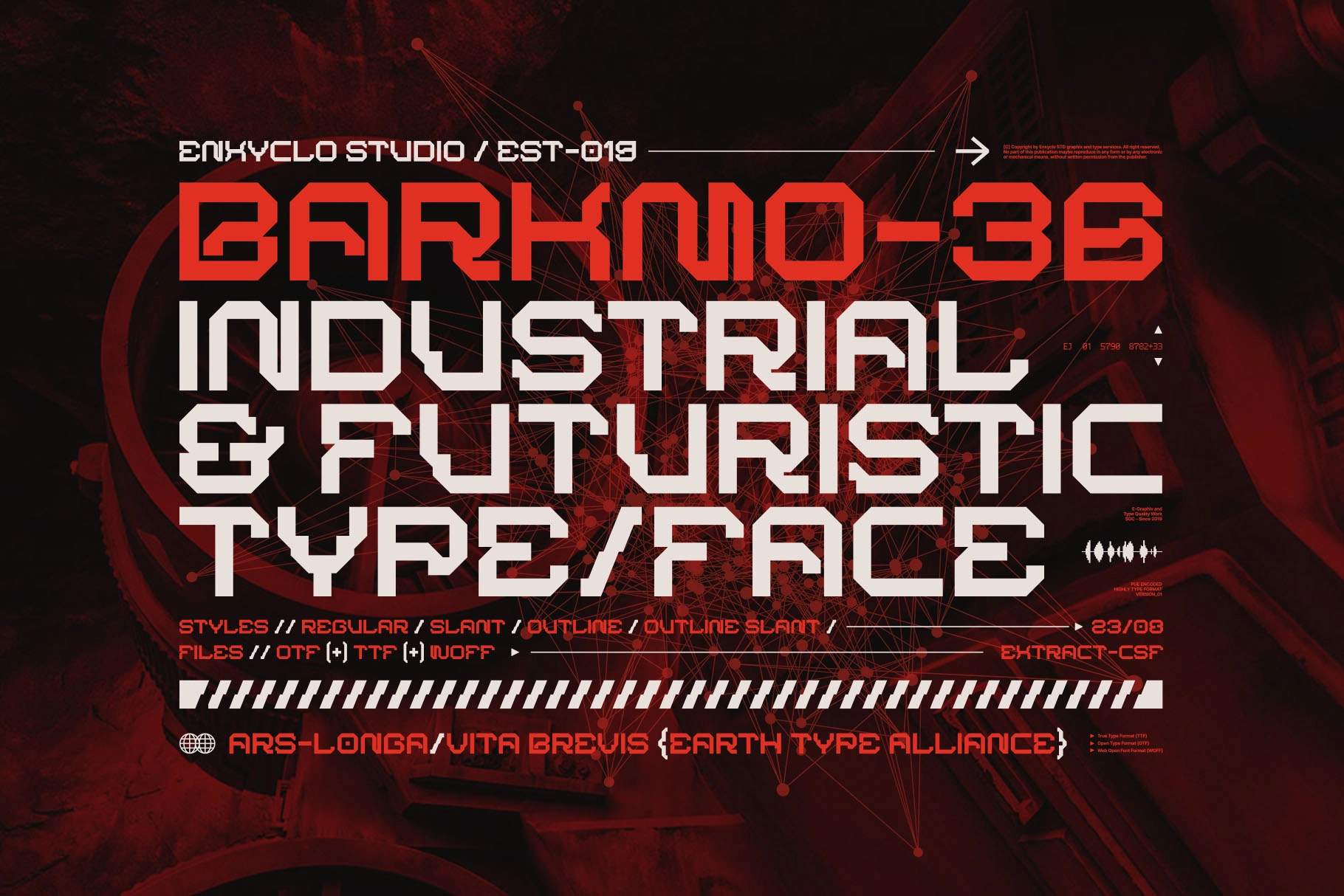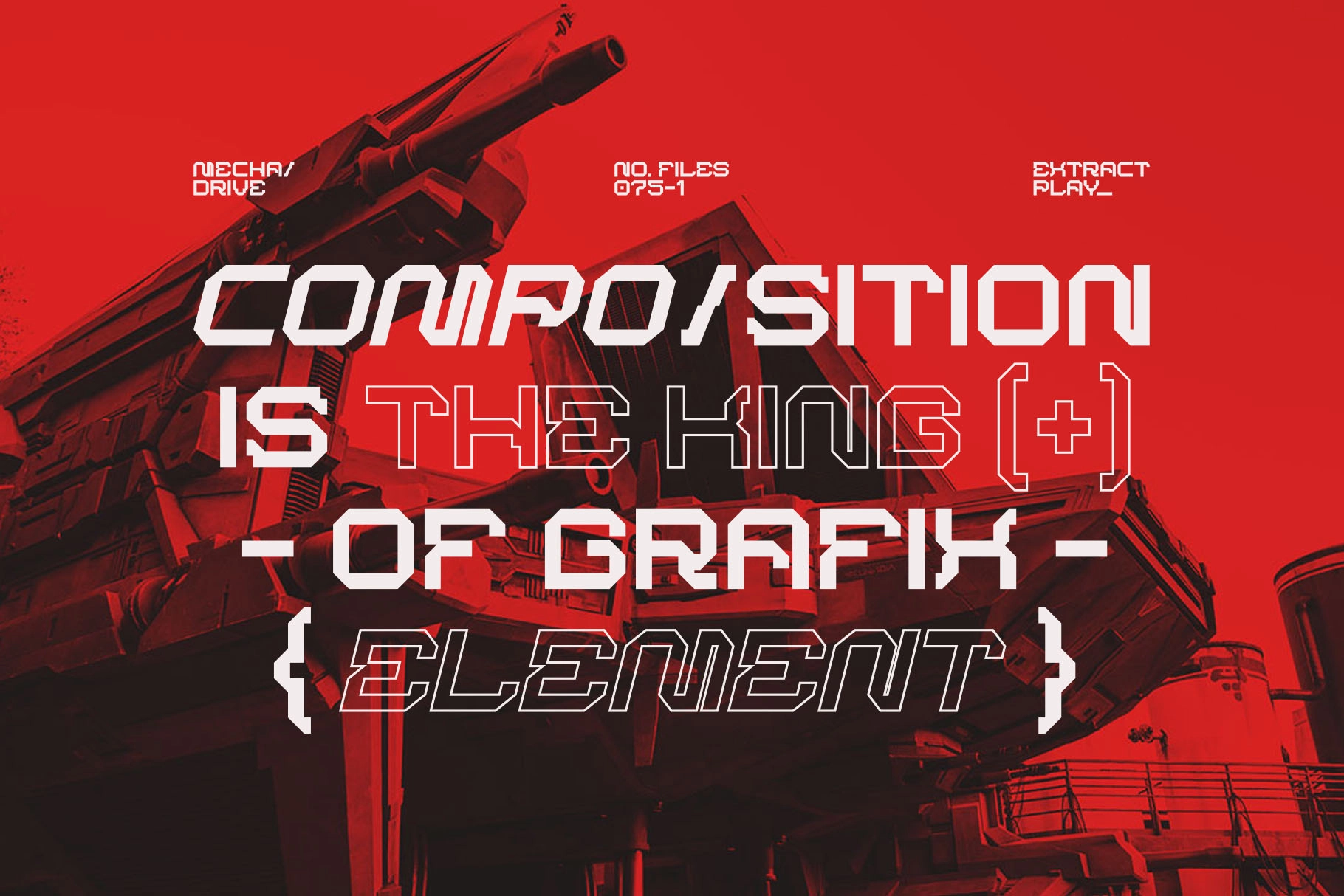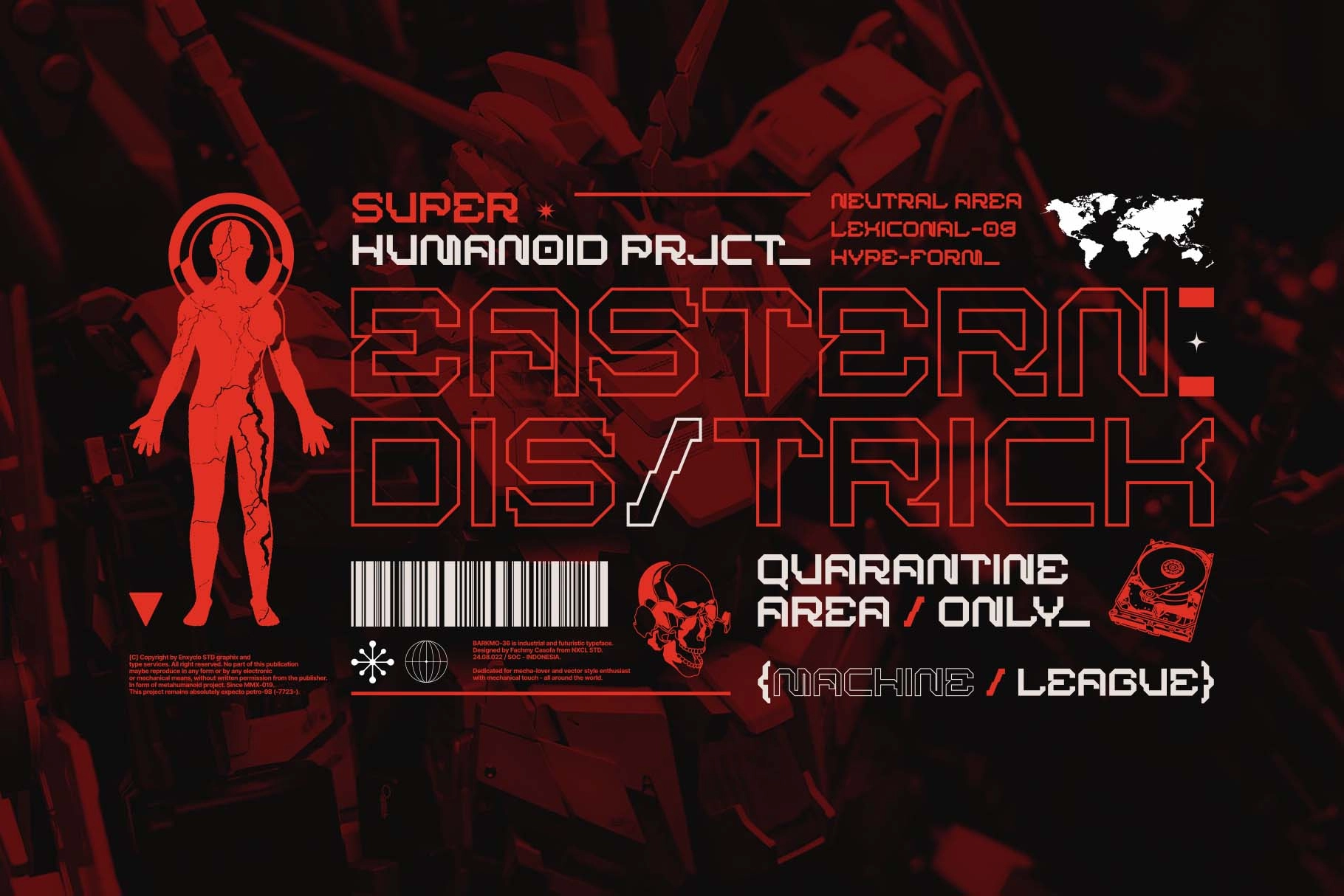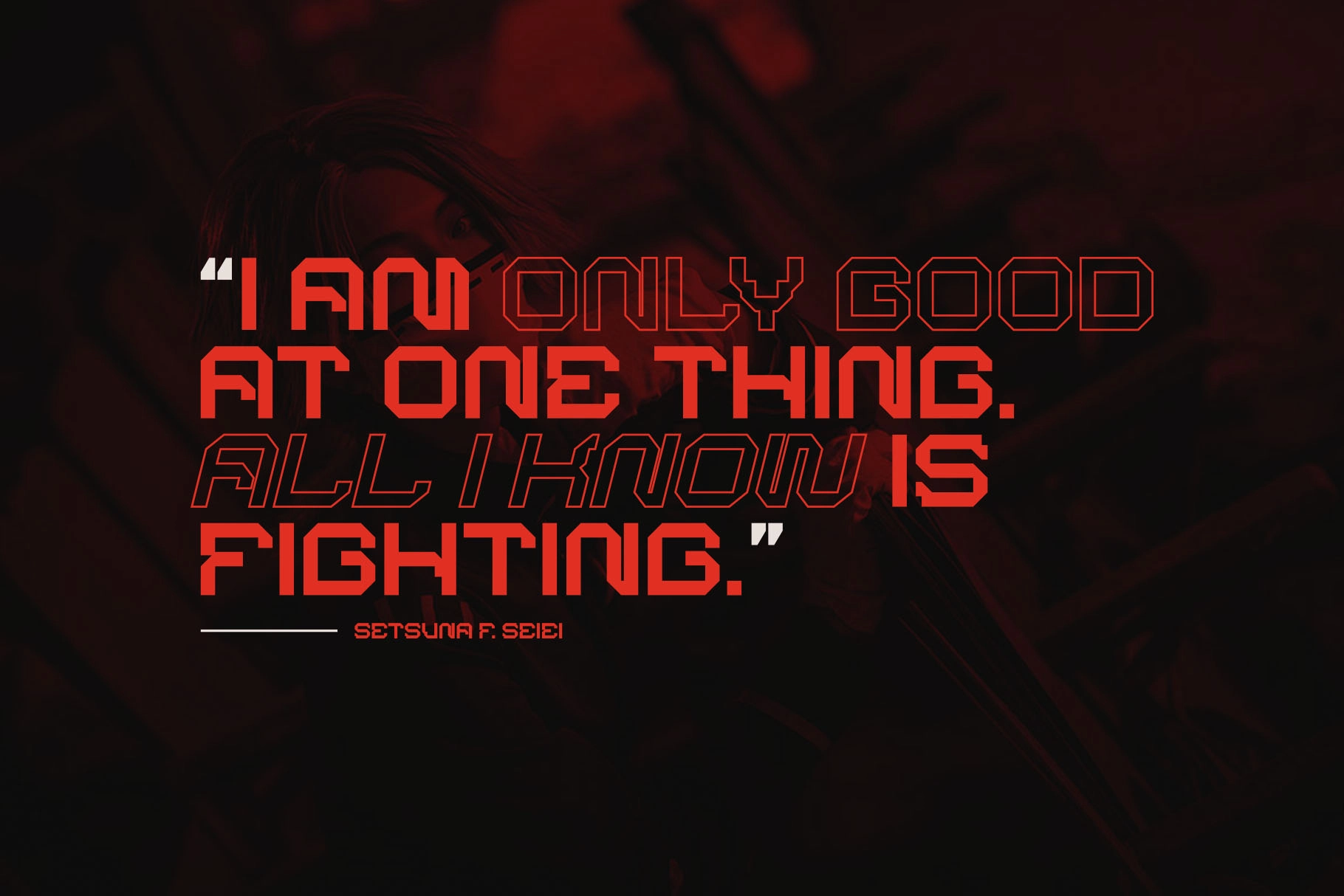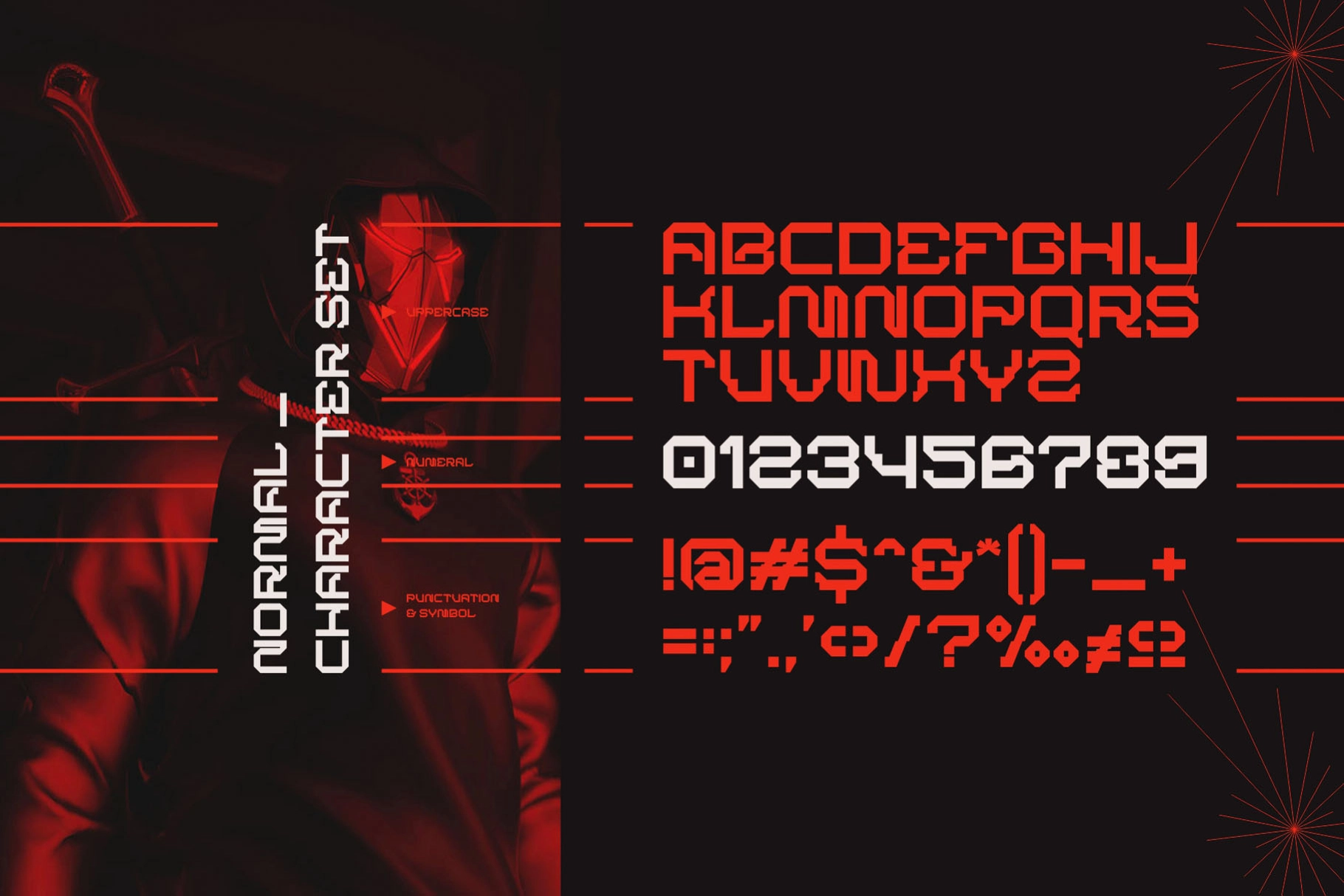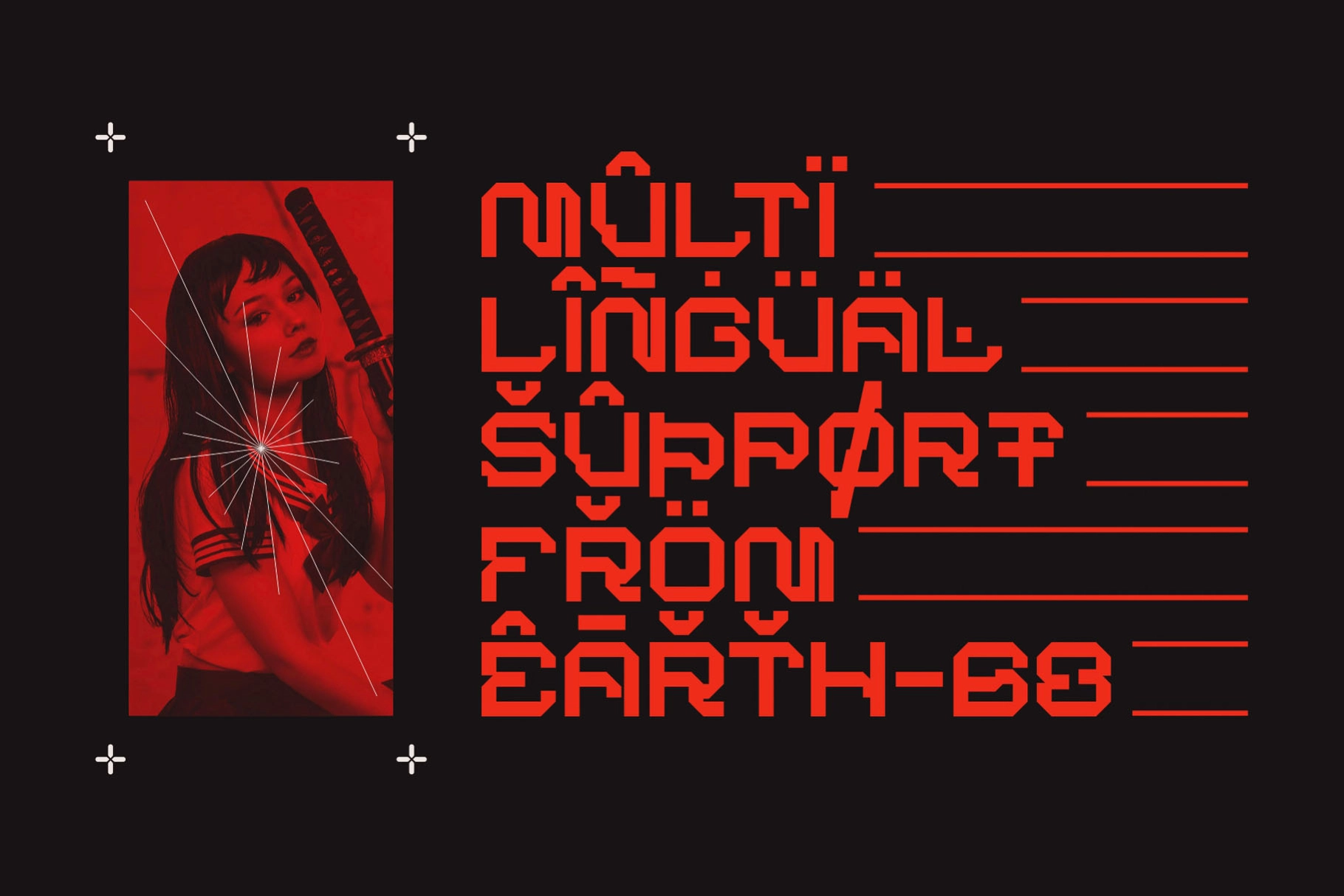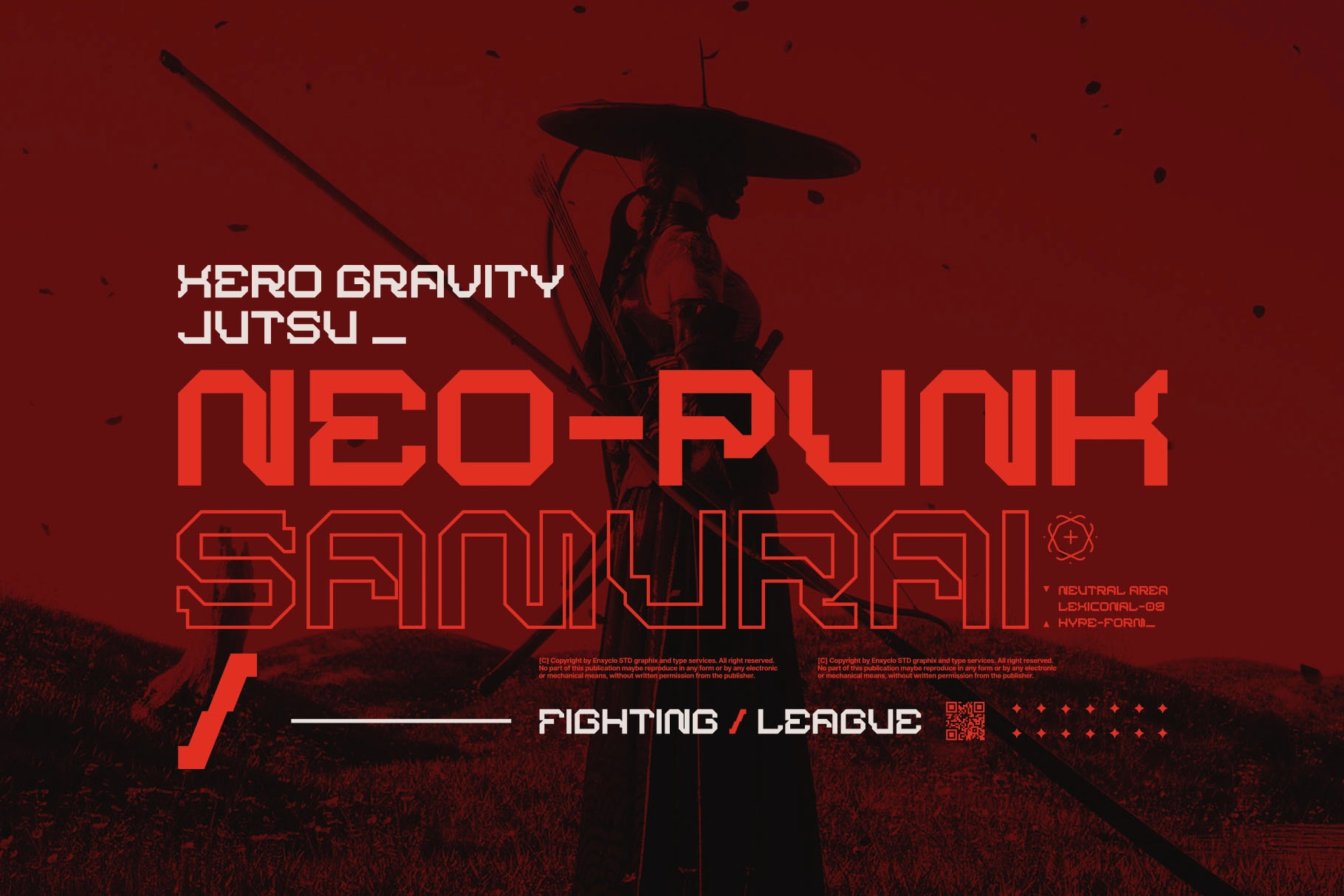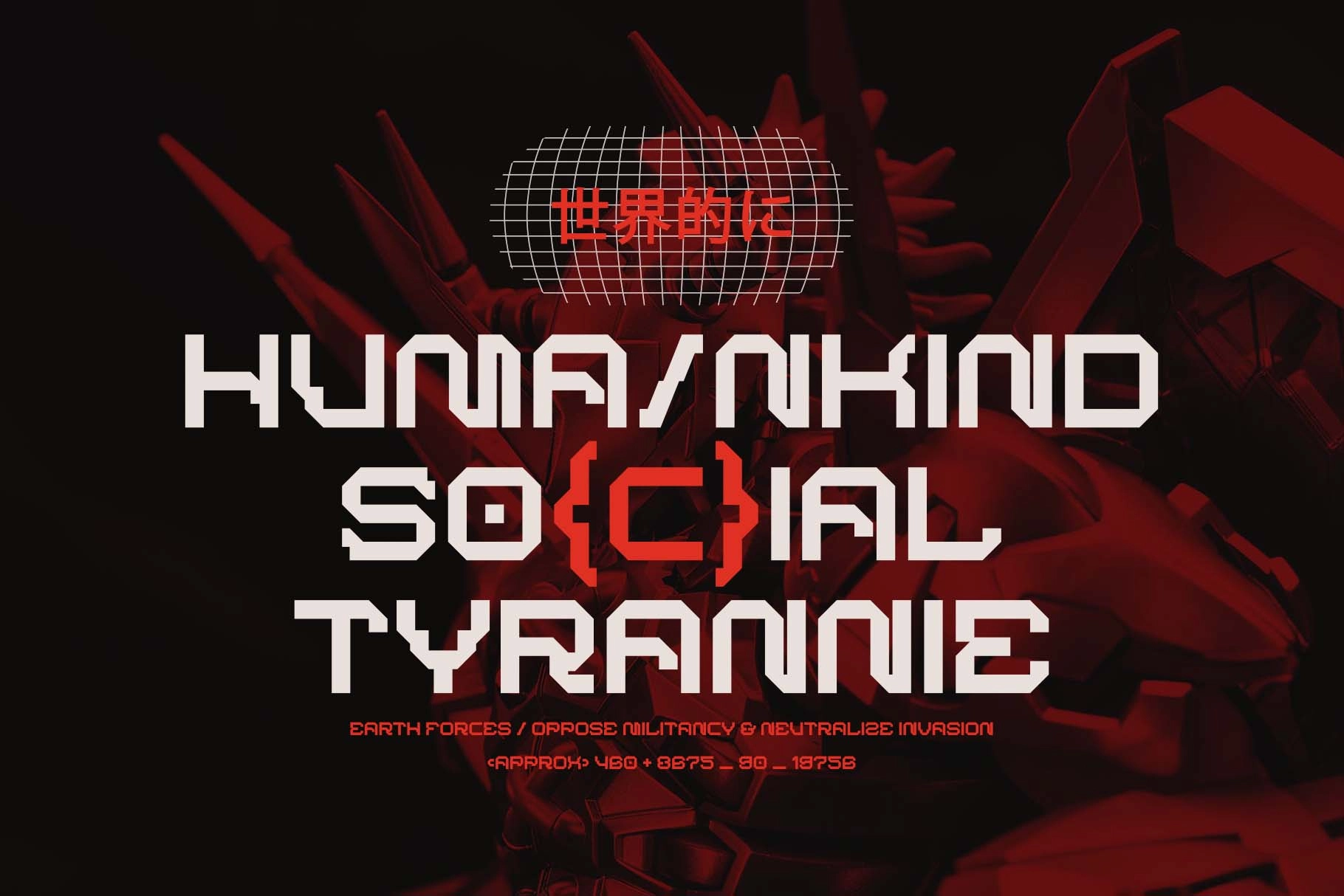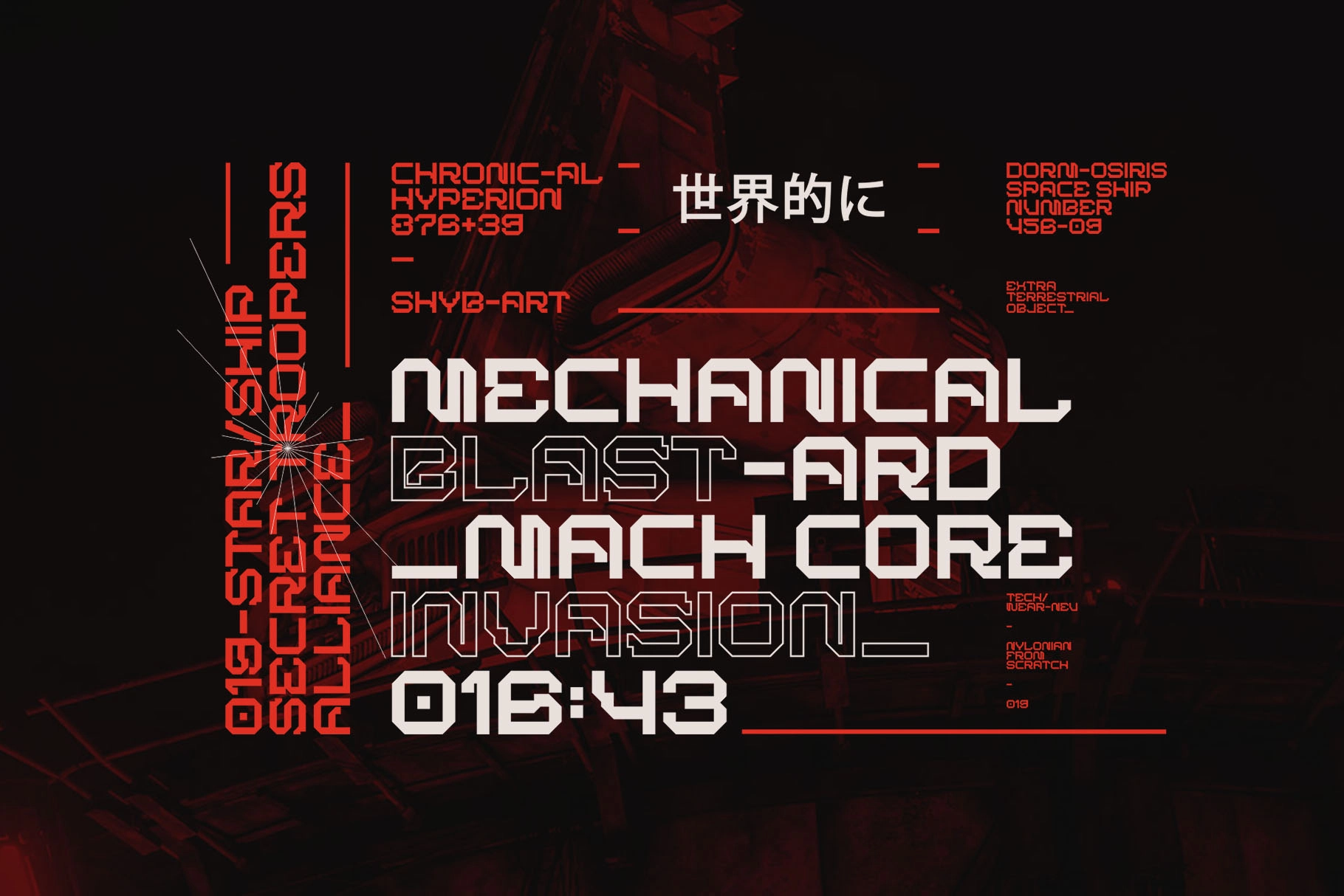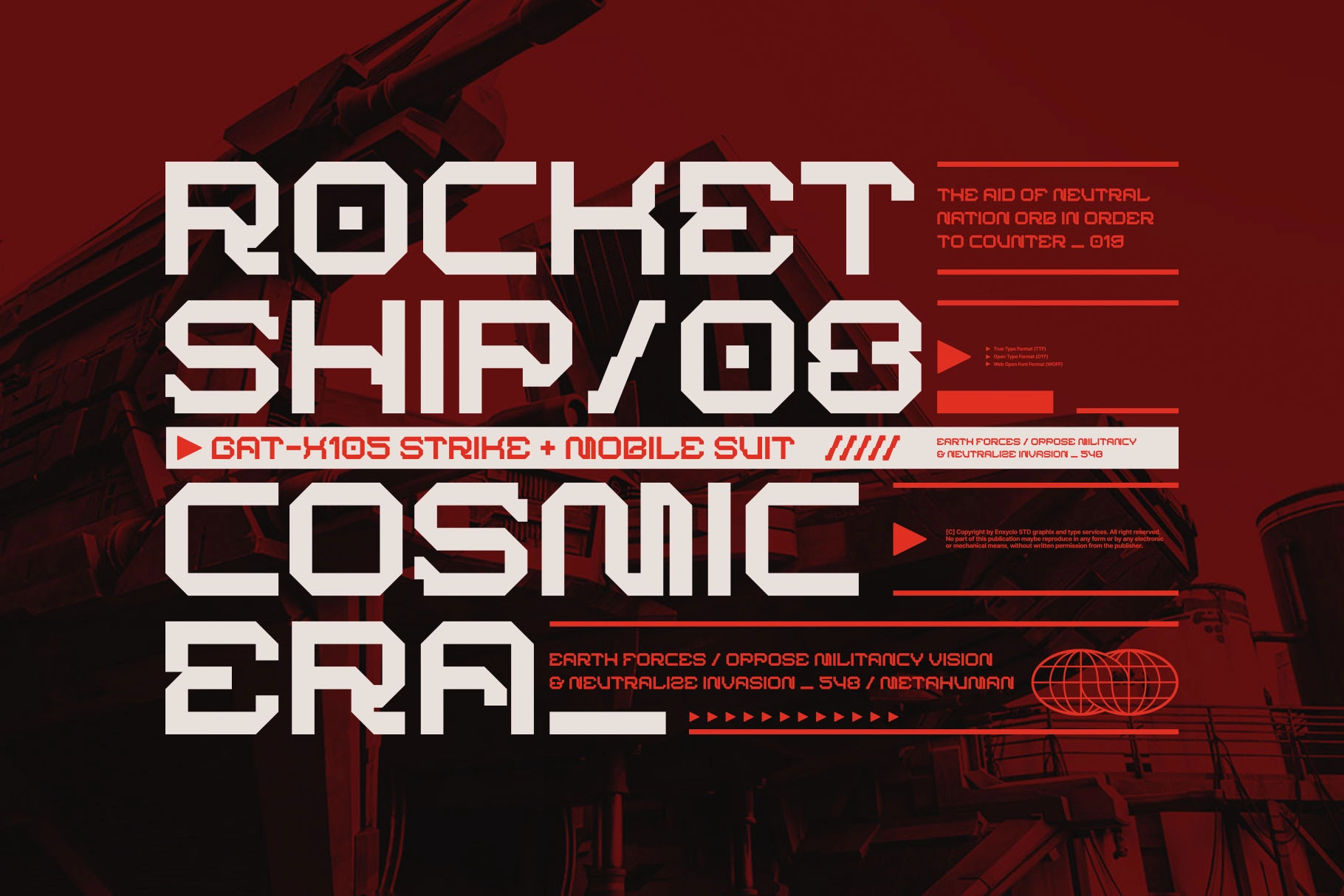
BARKMO36 - Futuristic Sci-fi Techno Font
BARKMO36, Futuristic Sci-fi Techno Font cuts a hard-edged silhouette that recalls late-1980s mecha anime, arcade cabinets, and the industrial graphics of dystopian sci-fi interfaces. It suits esports branding, game titles, music covers, tech posters, streetwear graphics, UI mockups, and packaging that calls for a sharp mechanical accent.
- 4 styles: Regular, Slanted, Outline, Outline Slanted
- Uppercase letters
- Punctuation & symbols
- 235 glyphs